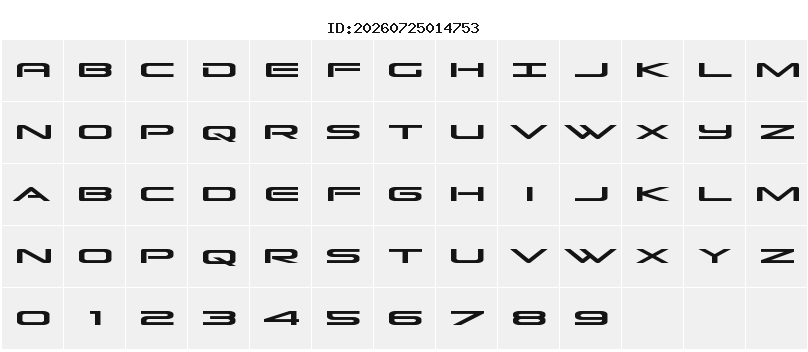
Grand Sport Preview
About Grand Sport.ttf
Grand Sport.ttf is a modern, elegant sans-serif font designed for ultimate readability and visual harmony. Perfect for branding, headlines, web design, and print materials.